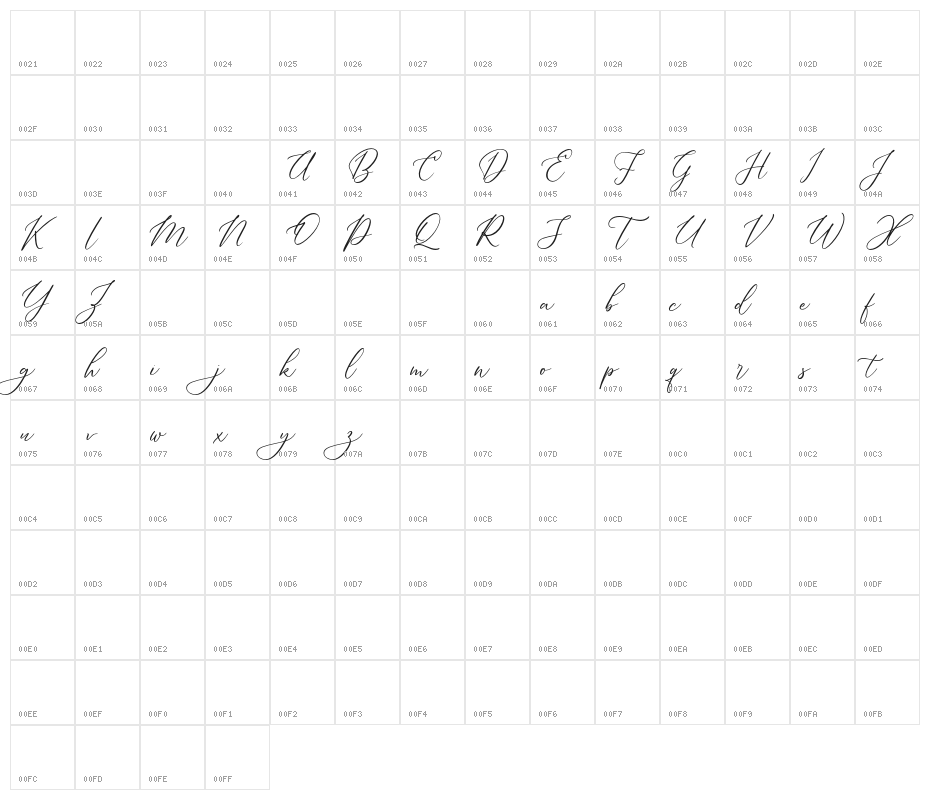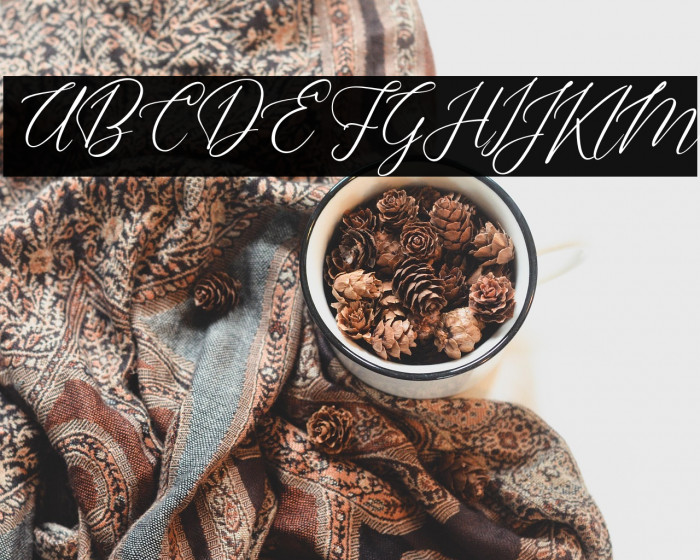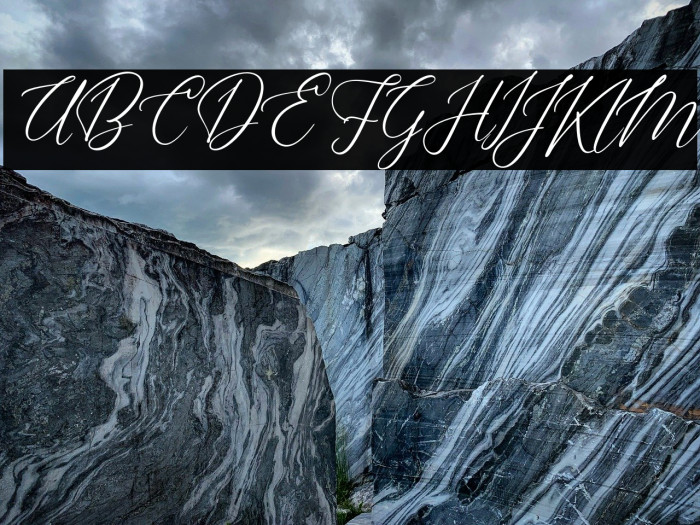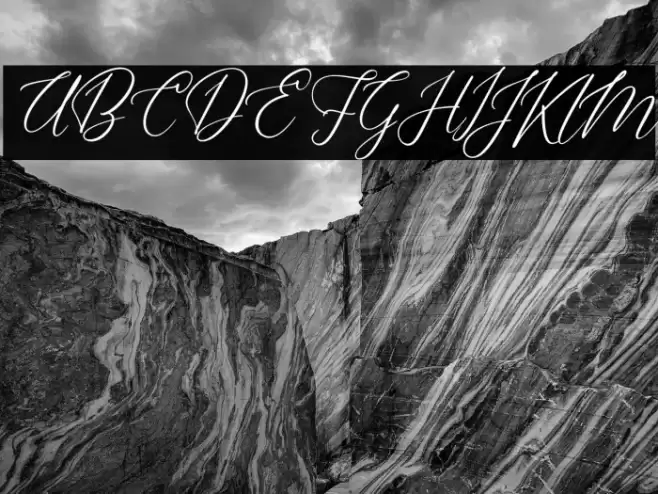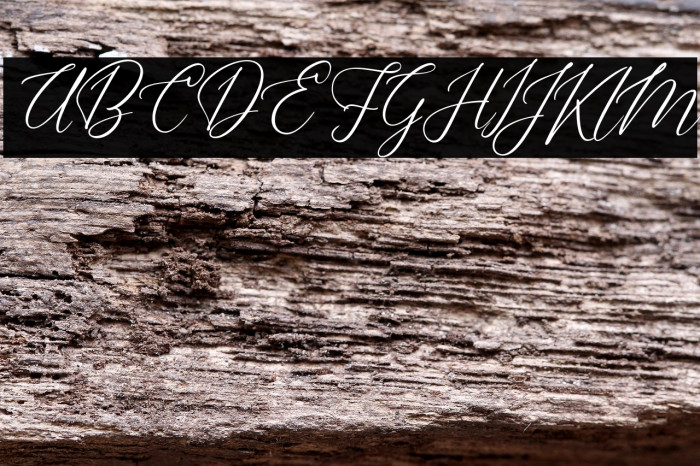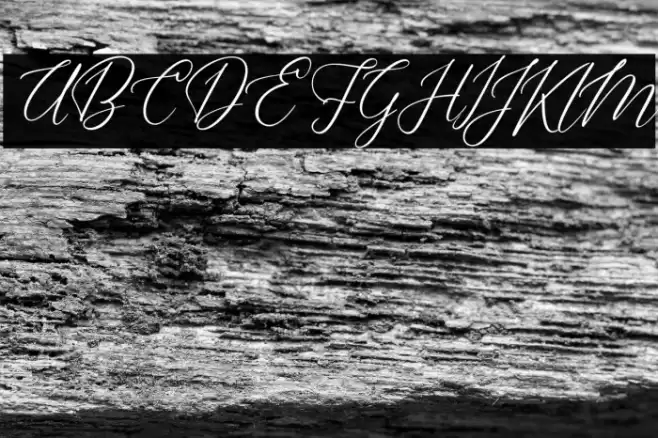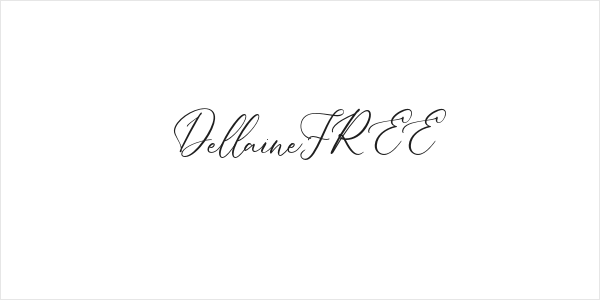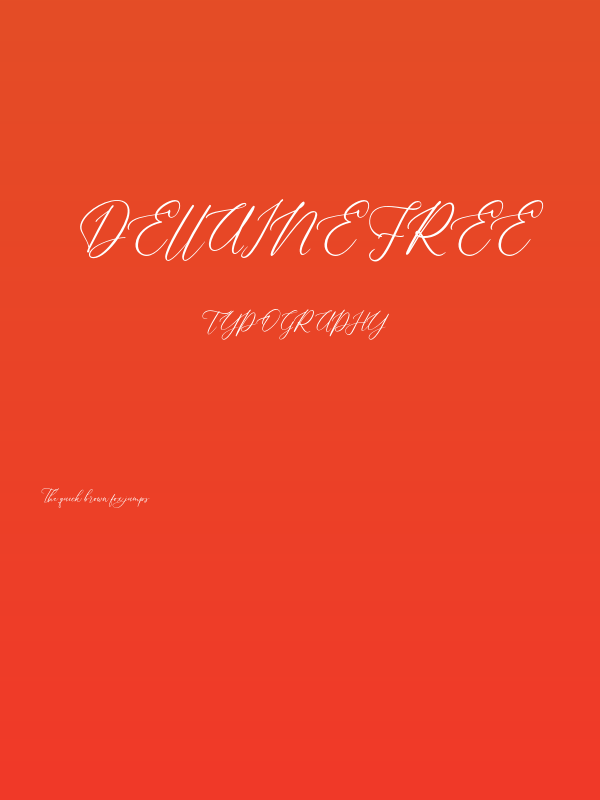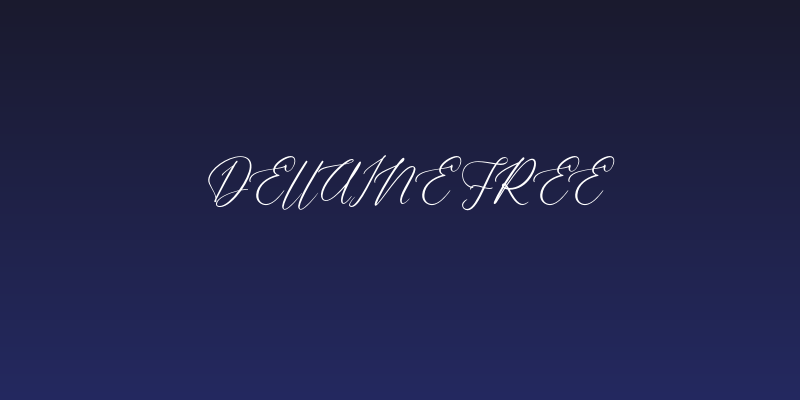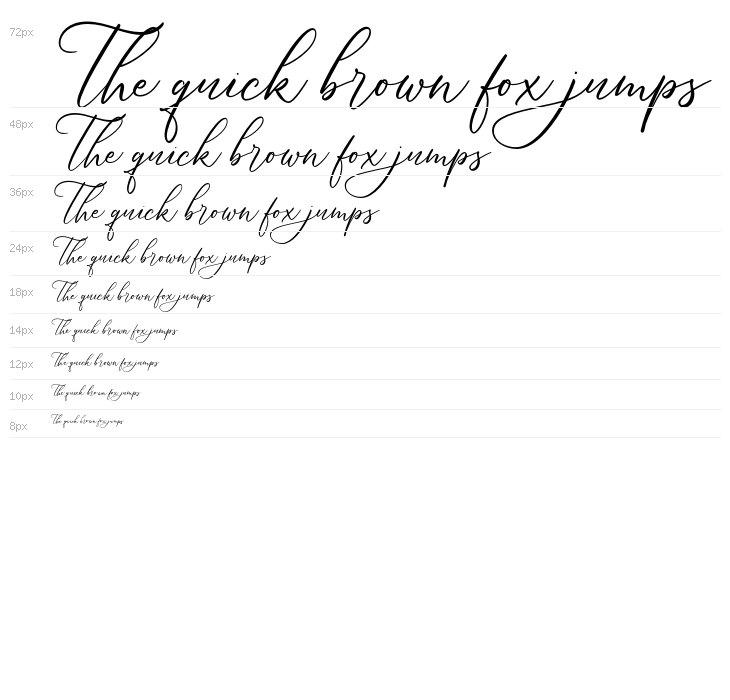
DellaineFREE Font
DellaineFREE Description
This elegant script font features fluid, cursive strokes that convey a sense of sophistication and grace. The uppercase letters are characterized by sweeping lines and intricate loops, while the lowercase letters maintain a consistent flow with delicate connections. The overall appearance is both refined and artistic, making it suitable for formal invitations, branding, and decorative purposes. The font's high contrast between thick and thin strokes adds to its visual appeal, enhancing its readability while maintaining an ornate style.
| Overall Style | Elegant, Artistic |
| Proposed Projects | Ideal for wedding invitations, luxury branding, greeting cards, and elegant signage. |